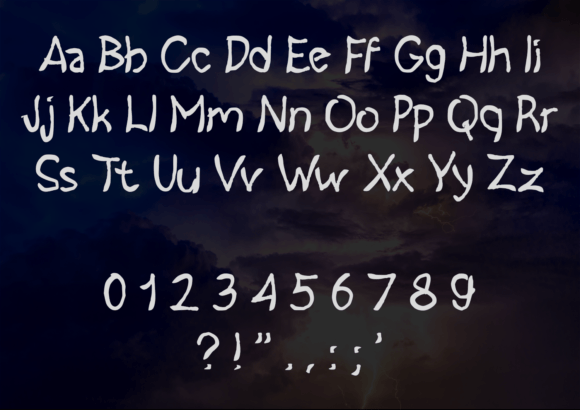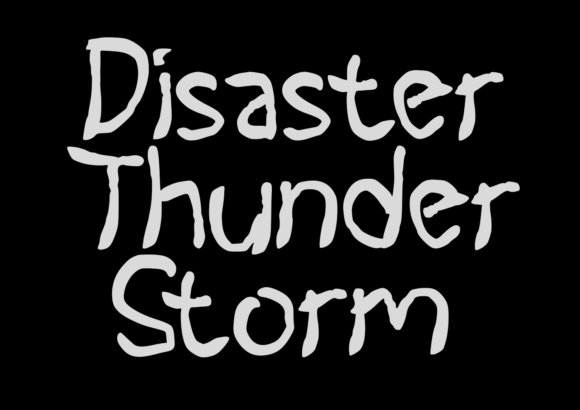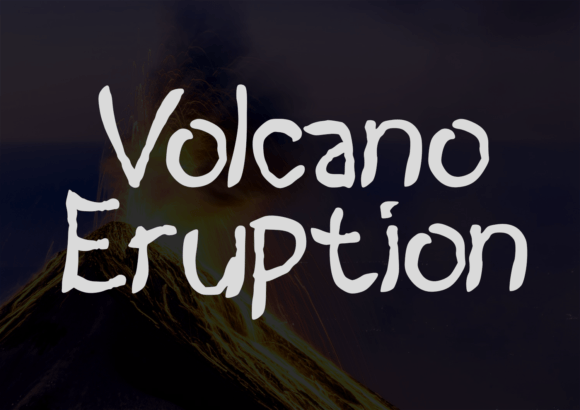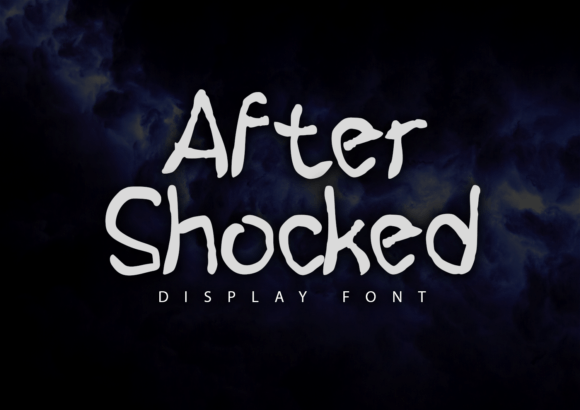
Aftershocked Font: The Ultimate Choice for Dramatic and Spooky Designs
In the world of typography, fonts play a crucial role in conveying the tone and mood of a design. For designers and crafters looking to add a touch of drama and spookiness to their projects, Aftershocked Font is an excellent choice. Inspired by the goosebump vibe, this cool display font is perfect for creating eye-catching branding, posters, apparel, merchandise, stickers, and more.
What is Aftershocked Font?
Aftershocked Font is a unique and captivating typeface designed to evoke a sense of thrill and eeriness. Its dramatic and spooky appearance makes it an ideal choice for designers who want to create a lasting impression. Whether you’re working on a Halloween-themed project or simply want to add some edge to your design, Aftershocked Font is sure to deliver.
Key Features of Aftershocked Font
- Dramatic and Spooky Appearance: Aftershocked Font boasts a bold and attention-grabbing design that’s perfect for creating dramatic and spooky effects.
- Cool Display Font: This font is specifically designed for display purposes, making it ideal for headlines, titles, and other prominent text elements.
- Versatile: Aftershocked Font can be used for a wide range of projects, including branding, posters, apparel, merchandise, stickers, and more.
Use Cases for Aftershocked Font
Aftershocked Font is a versatile typeface that can be used in various design projects. Here are some use cases to get you started:
- Halloween-themed Designs: Create spooky and eye-catching designs for Halloween-themed projects, such as party invitations, posters, and social media graphics.
- Branding and Packaging: Use Aftershocked Font to create bold and attention-grabbing branding and packaging designs for products that require a dramatic and spooky look.
- Apparel and Merchandise: Design eye-catching apparel and merchandise, such as t-shirts, hoodies, and stickers, with Aftershocked Font.
- Posters and Flyers: Create dramatic and spooky posters and flyers for events, concerts, or movie promotions.
Tips for Using Aftershocked Font
To get the most out of Aftershocked Font, here are some tips to keep in mind:
- Use it Sparingly: Aftershocked Font is a bold and attention-grabbing typeface, so use it sparingly to avoid overwhelming your design.
- Pair it with Other Fonts: Combine Aftershocked Font with other fonts to create a unique and visually appealing design.
- Experiment with Colors: Try out different color schemes to find the perfect combination that complements your design and Aftershocked Font.
Aftershocked Font is a unique and captivating typeface that’s perfect for designers and crafters looking to add a touch of drama and spookiness to their projects. With its bold and attention-grabbing design, this font is sure to deliver a lasting impression. Whether you’re working on a Halloween-themed project or simply want to add some edge to your design, Aftershocked Font is an excellent choice.